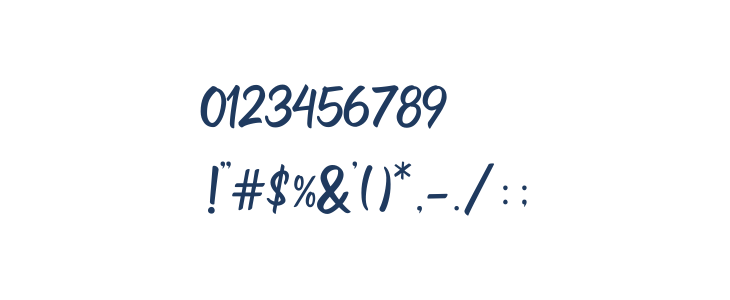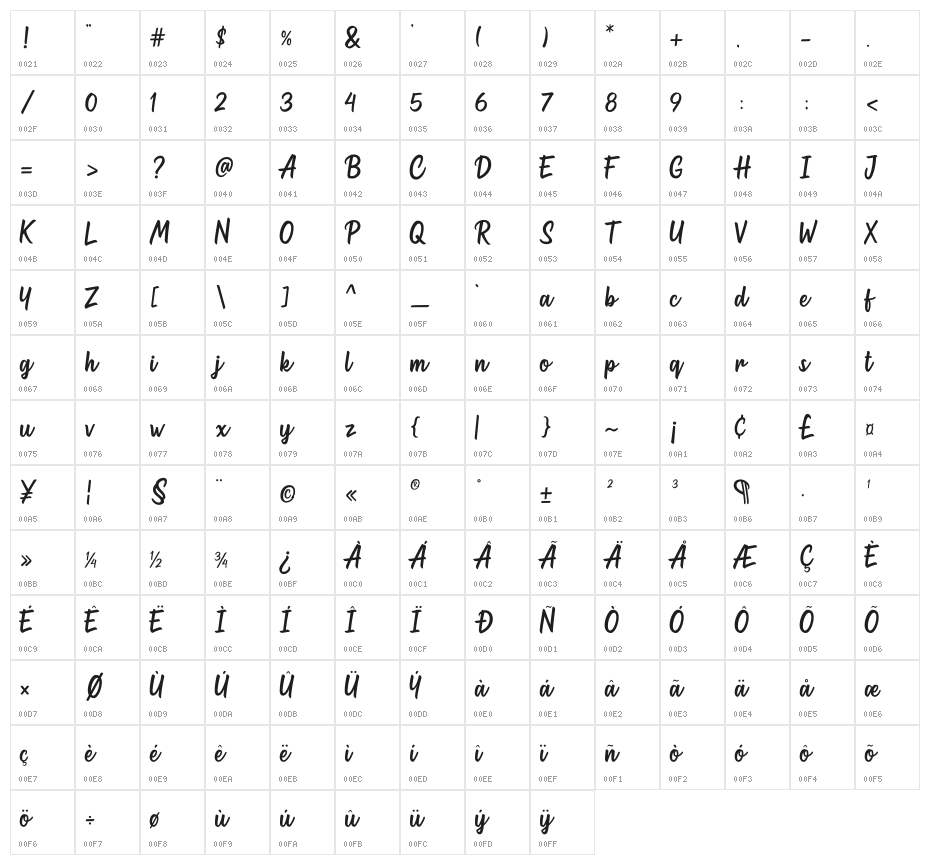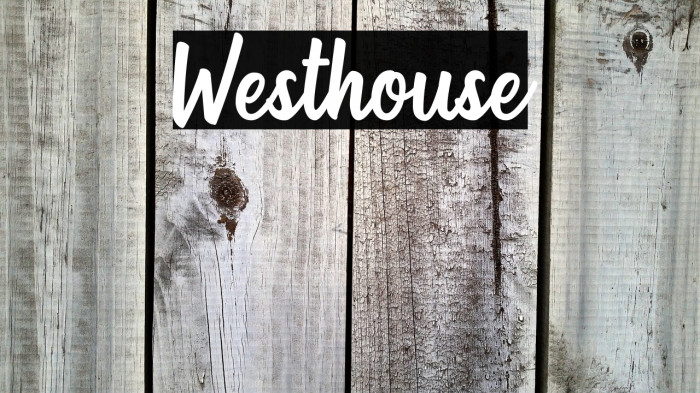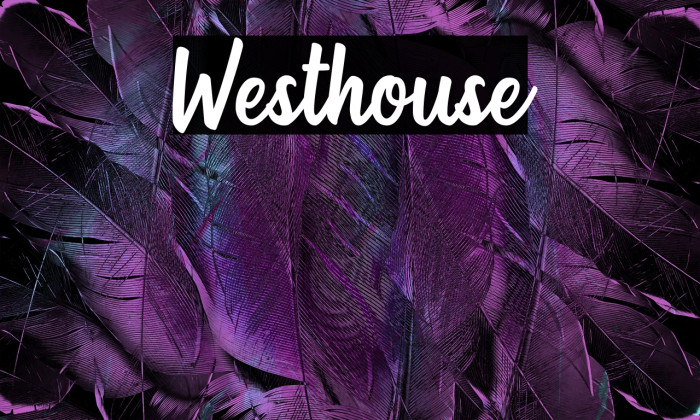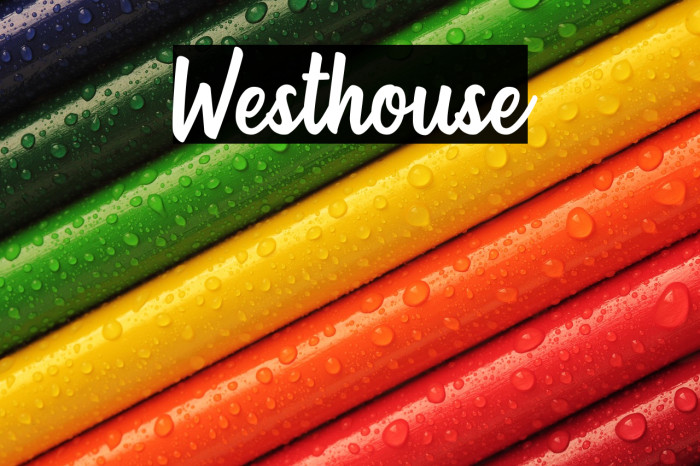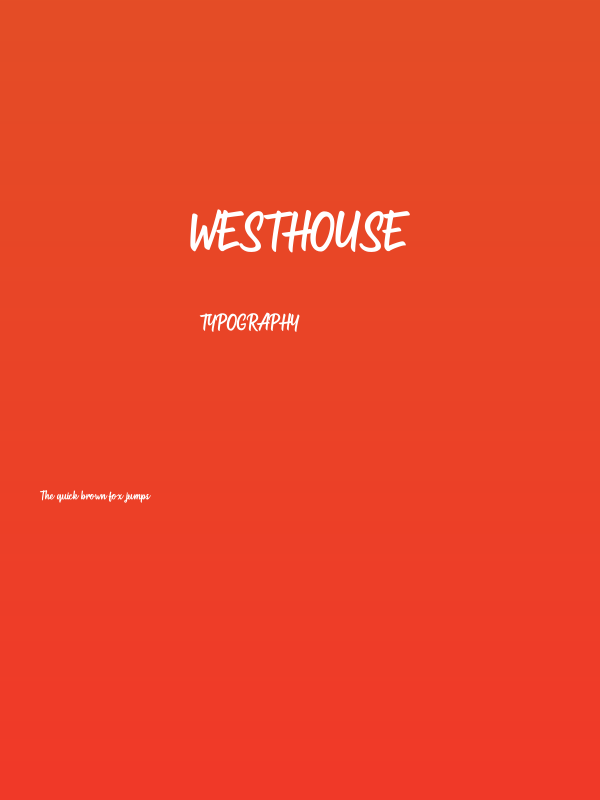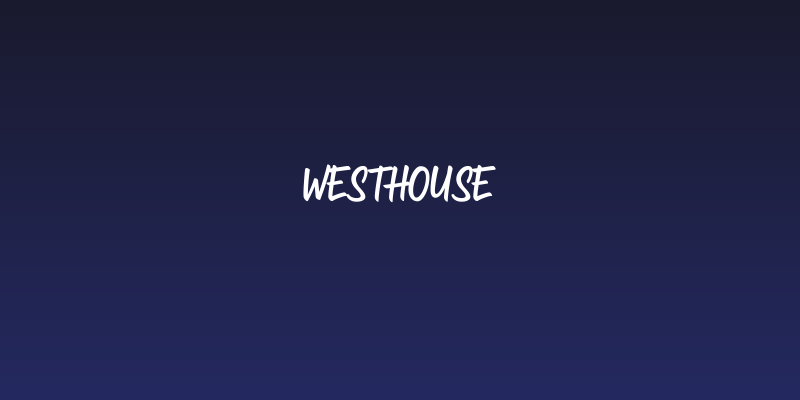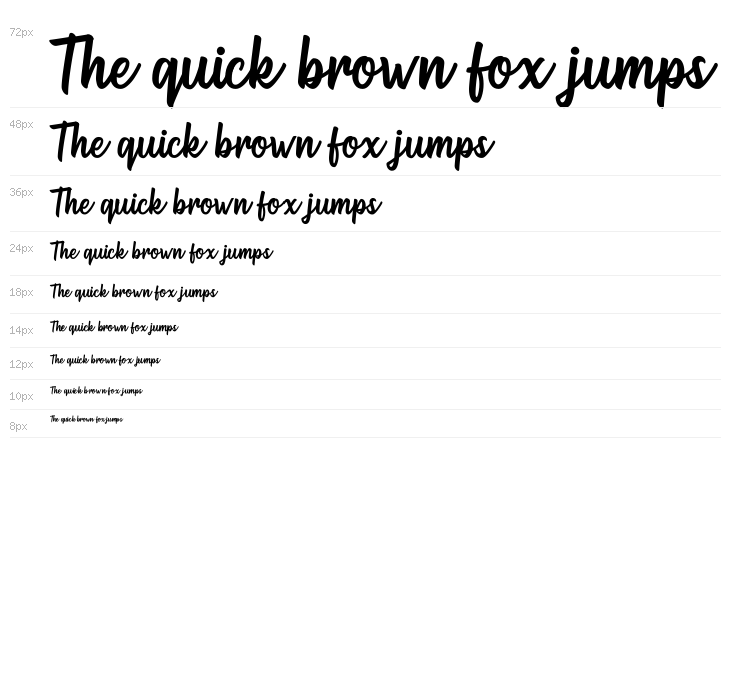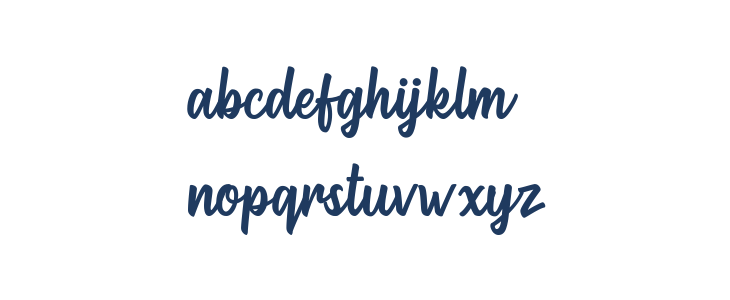
Westhouse Font
Westhouse Description
This font features a dynamic and flowing script style, characterized by its smooth, cursive strokes and slightly slanted orientation. The uppercase letters are bold and prominent, with a playful yet elegant flair, while the lowercase letters maintain a consistent rhythm and fluidity. The numerals and special characters are designed to complement the overall aesthetic, ensuring readability and style. This font's design is versatile, making it suitable for a variety of creative applications. Its handwritten appearance adds a personal touch, making it ideal for projects that require a warm and inviting feel.